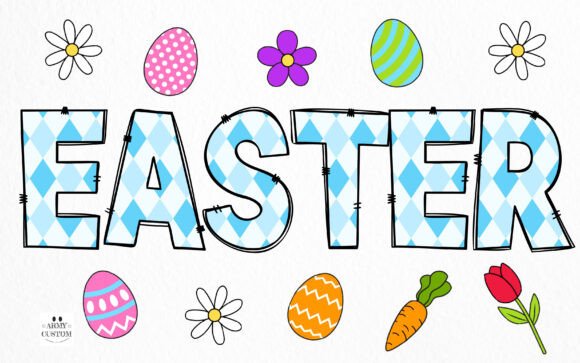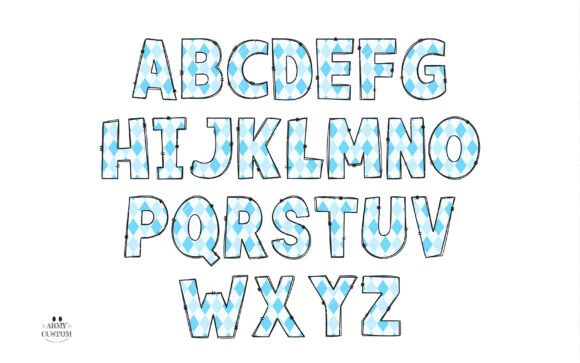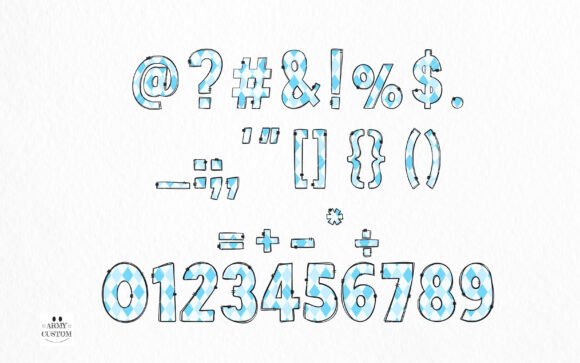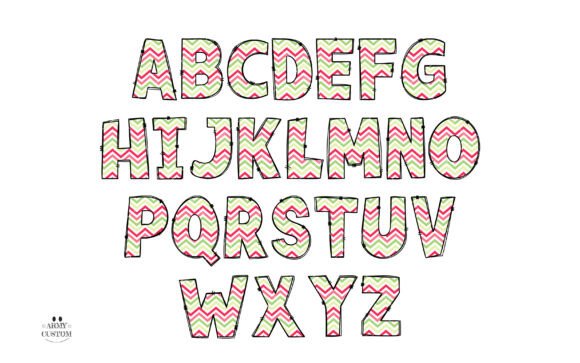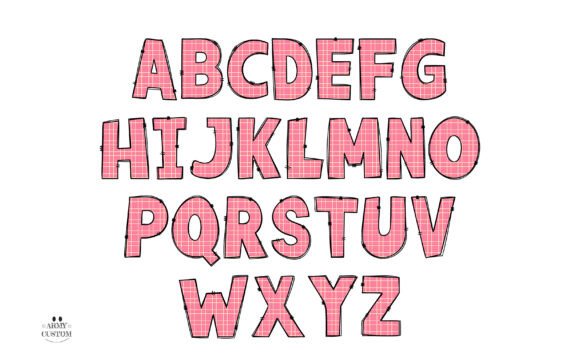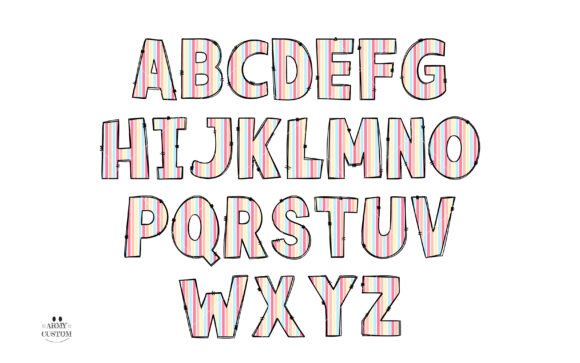
Unleashing the Joy of Easter with the Easter Bundle Font No.6
I’ll never forget the time I was working on an Easter-themed project for a client, and I just couldn’t find the right font to capture the spirit of the season. The designs were beautiful, but they were missing that extra oomph to make them truly special. That’s when I stumbled upon the Easter Bundle Font No.6, and it was love at first sight! ✨ The rhythmic charm and joyful exhilaration of Spring reminiscent of Easter celebrations were perfectly encapsulated in this delightful font.
A Personal Review: What I Love and What to Consider
- ✅ The Easter Font effortlessly transcribes your ideas into delightful visual narratives, infusing your designs with a lively, vibrant aesthetic.
- 🤔 Some users might find it challenging to navigate the various OpenType features and glyphs, but don’t worry, we’ll cover that in the how-to guide below.
The Easter Bundle Font No.6 was created with the intention of capturing the essence of Easter celebrations. The designer aimed to create a font that would evoke the feeling of joy, hope, and renewal associated with the season. With its lively and vibrant aesthetic, this font is sure to bring a touch of Easter magic to your designs.